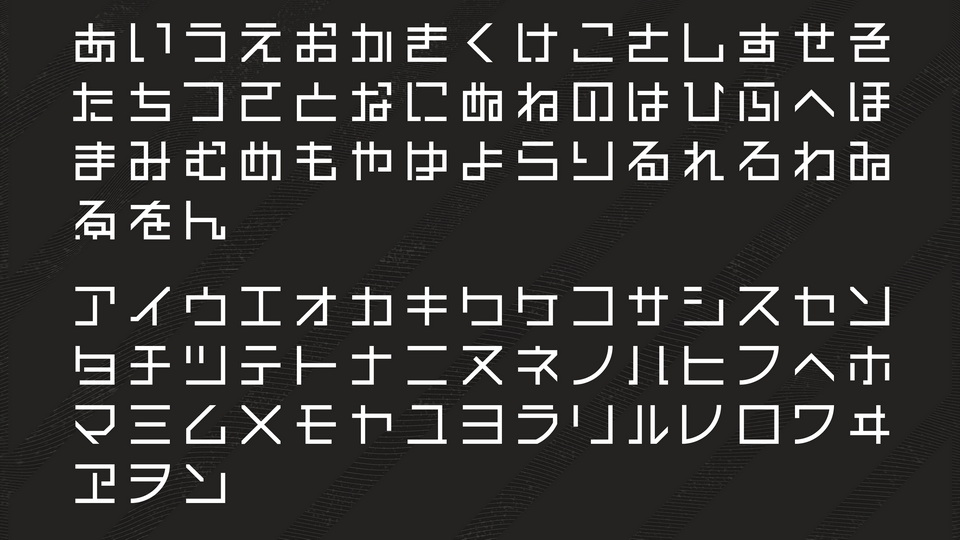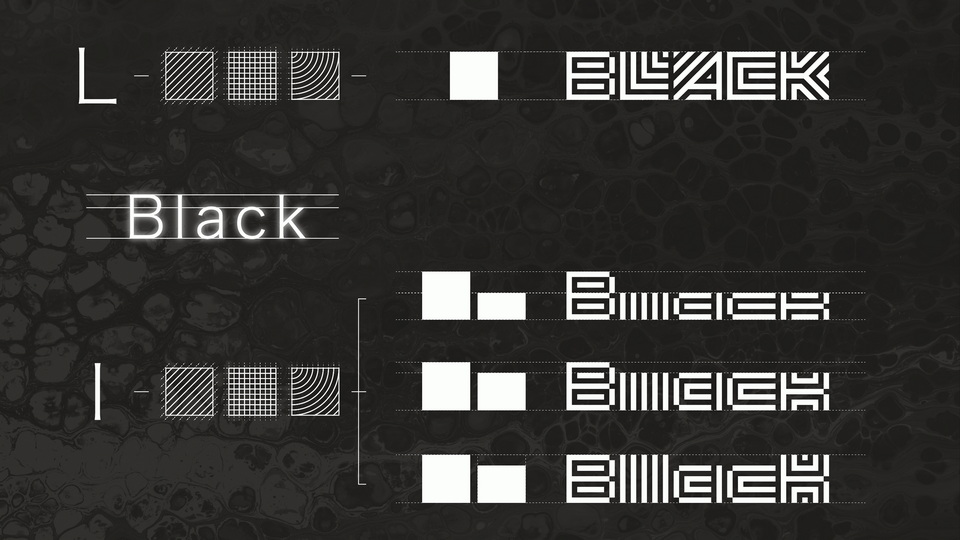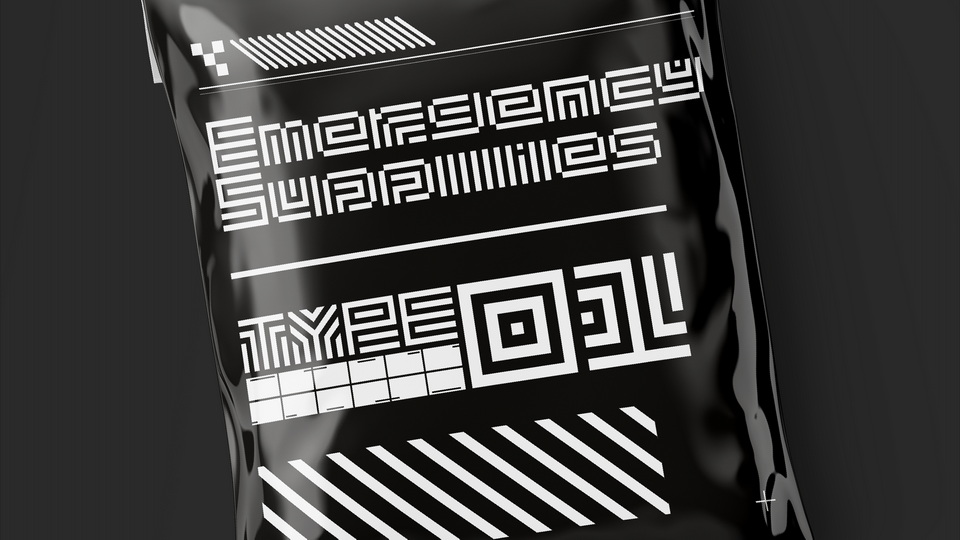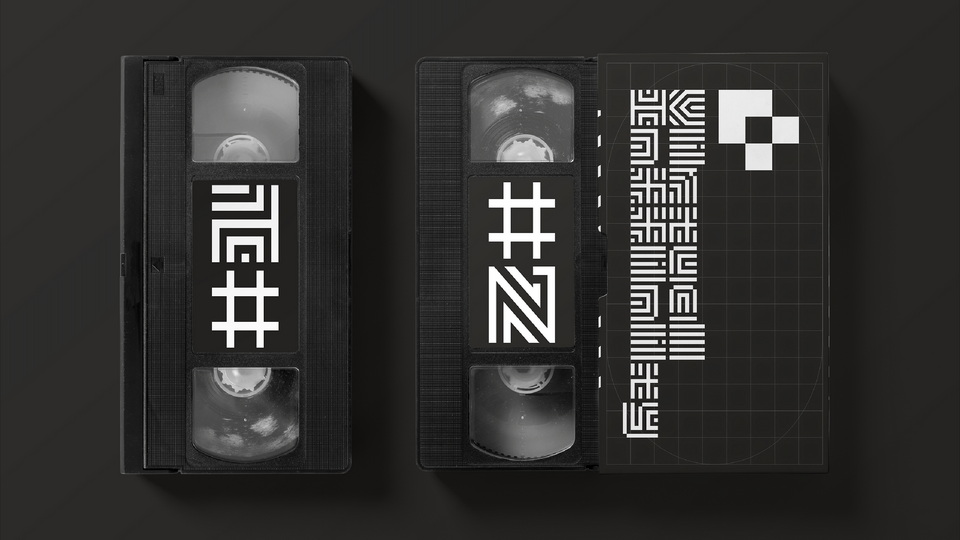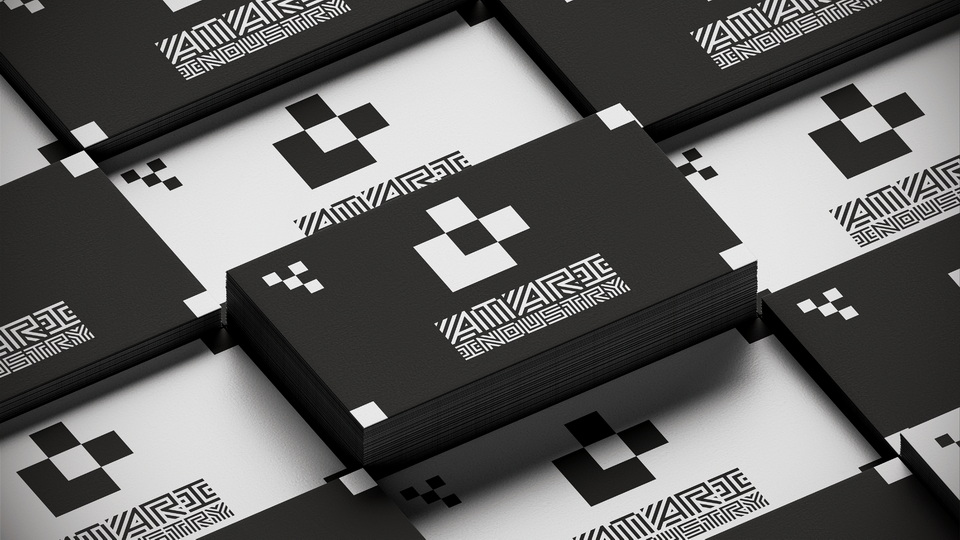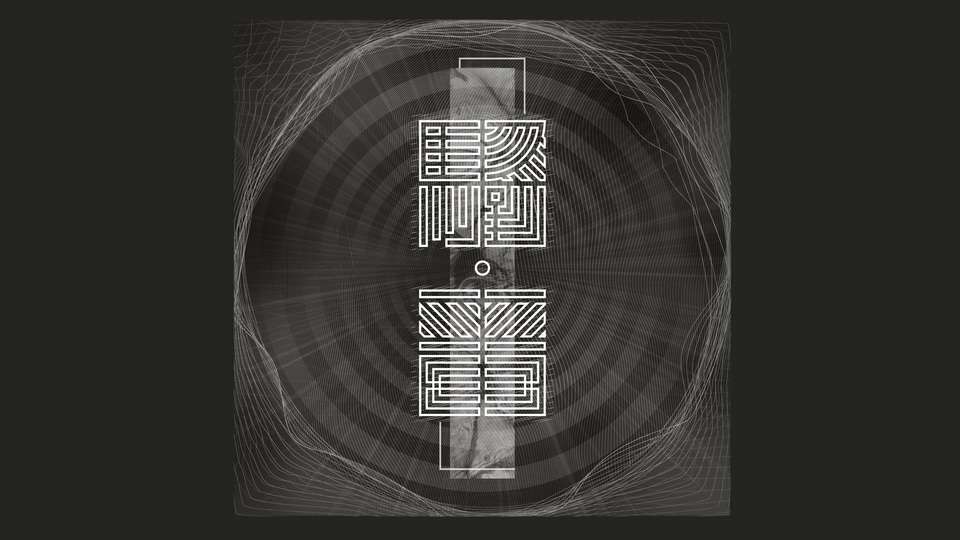
Noise Warning is a display typeface with 9×9 grids and corresponding size of arcs and slashes as the main design specifications.
Noise Warning contains 475-characters include English letters, Roman letters, Japanese kana, and common punctuation marks (included some of the fonts have multiple choices).
Noise Warning is very suitable for the design with a sense of futuristic or technological sense. It can also be used in conjunction with other typefaces with a sense of science and technology.